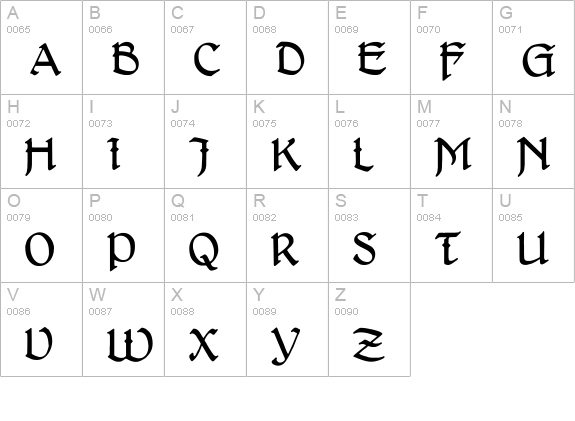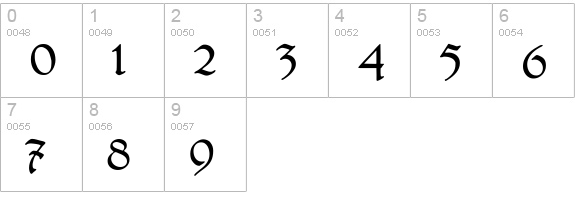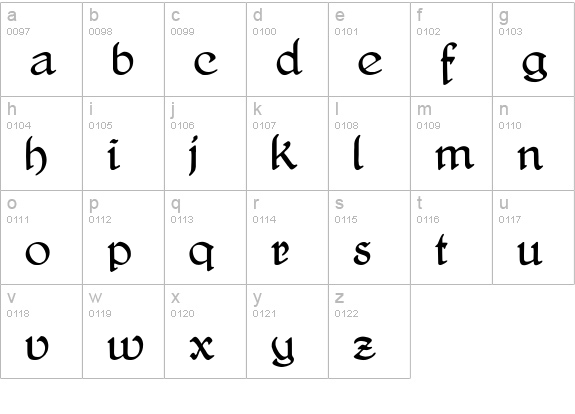
DelitschAntiqua Font Details
DelitschAntiqua is a timeless and elegant font that exudes sophistication and charm. With its classic serifs and graceful curves, this typeface is perfect for adding a touch of refinement to any design project. Whether you're creating wedding invitations, branding materials, or editorial layouts, DelitschAntiqua will elevate your work to new heights. What sets DelitschAntiqua apart is not only its beauty but also its accessibility. This stunning font is available for free download at FontsMarket.com, making it easy for designers of all levels to incorporate it into their projects. Whether you're a seasoned professional or a hobbyist looking to elevate your creations, DelitschAntiqua is the perfect choice. Embrace the timeless beauty and versatility of DelitschAntiqua in your next project and see how this font can truly make a difference. Download it for free today and let your creativity soar with this exquisite typeface.